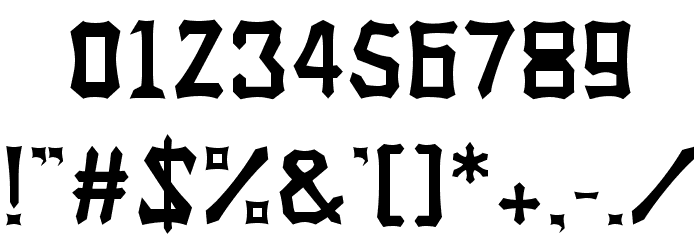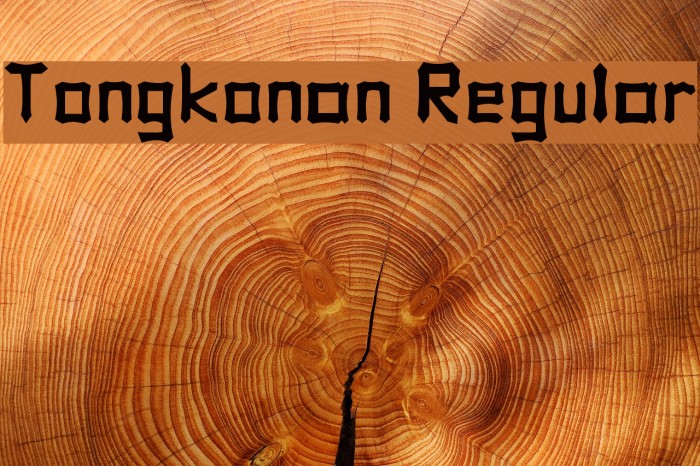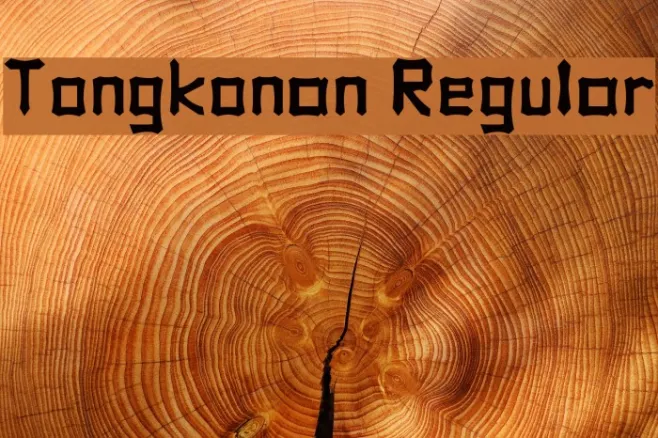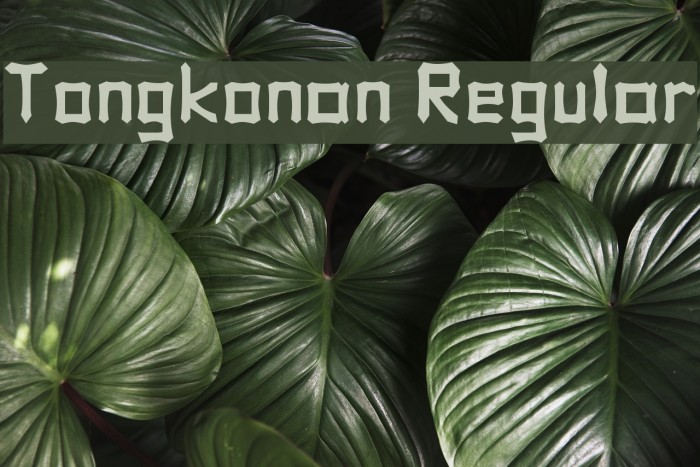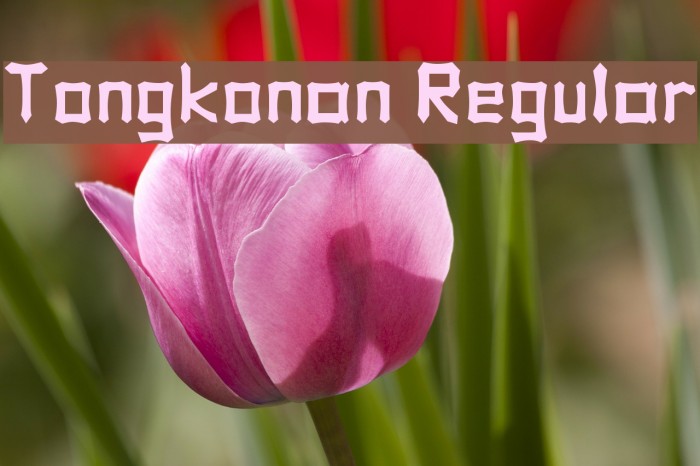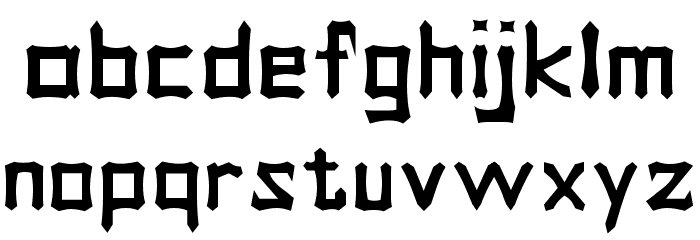
Tongkonan Regular Font
Tongkonan Regular Description
This font features a bold and angular design, reminiscent of traditional tribal or indigenous patterns. The characters are uniquely shaped with sharp edges and a strong presence, making it stand out in any design. The uppercase and lowercase letters maintain a consistent style, with a slightly condensed form that adds to its distinctiveness. Numbers and special characters are crafted with the same attention to detail, ensuring uniformity across all glyphs. This font's boldness and decorative elements make it suitable for projects that require a strong visual impact.
| Proposed Projects | Ideal for cultural event posters, logo designs, and branding materials that require a distinctive and bold appearance. |